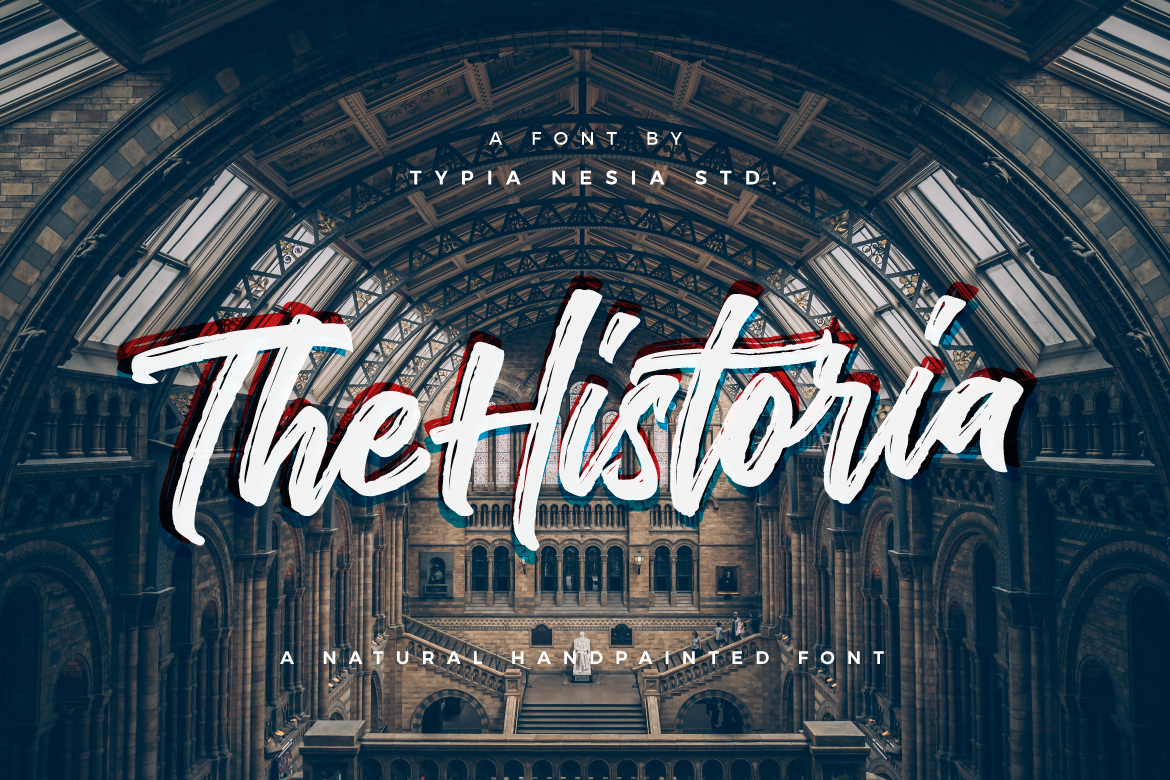
The Historia Urban Font
UPDATE - The Secondary Version (Solid Version)
Introducing The Historia! an urban / vintage and natural handpainted font. Suitable for any design needs, branding, urban design, modern advertising design, Art Quote, Book/Cover Title, special events, custom mug, pillow, t-shirts, any brush lettering needs and more.
The Historia comes with upper and lowercase Standard Characters, Punctuation, Numerals. And some glyphs variation of the OpenType features such as Standard Ligatures and Stylistic Set. Includes a range of multilingual support.